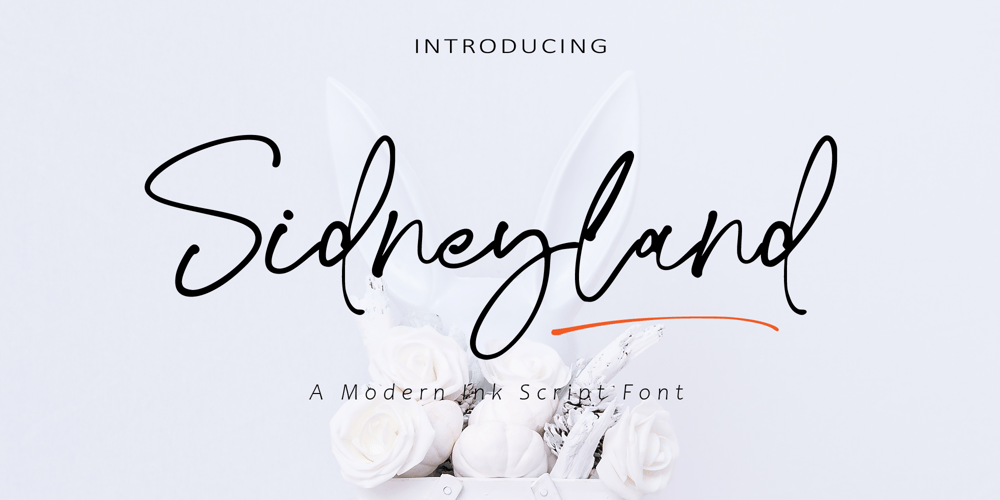
Sidneyland
Sidneyland font
Sidneyland Font Family was designed by Khalifah Ibrahim and published by Ibrahima Studio. Sidneyland contains 2 styles and family package options. Sidneyland is a modern typeface that has natural hand write looks. It gives a vintage and sophisticated vibe to your design project.Sidneyland font is perfect for branding projects, logo, wedding designs, social media posts, advertisements, product packaging, product designs, label, photography, watermark, invitation, stationery and any projects that need handwriting taste.This font will look outstanding in any context, whether it’s being used on busy backgrounds or as a standalone headline!